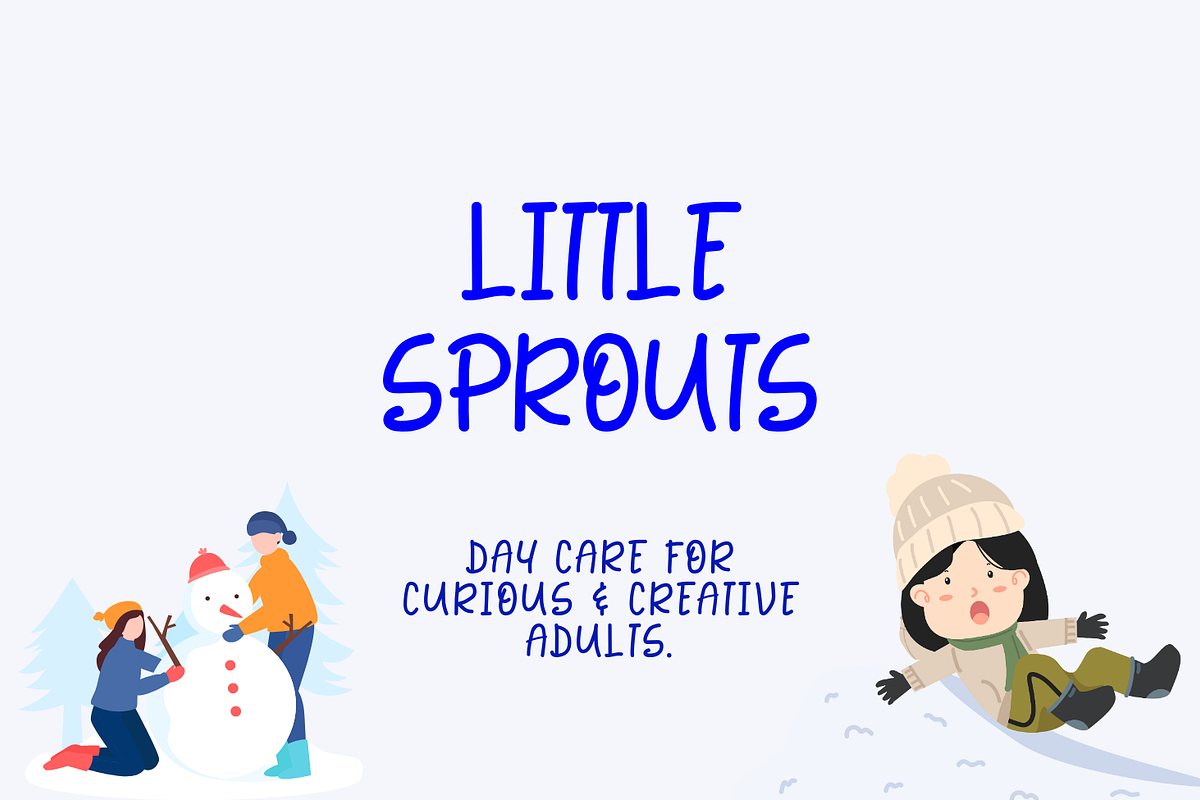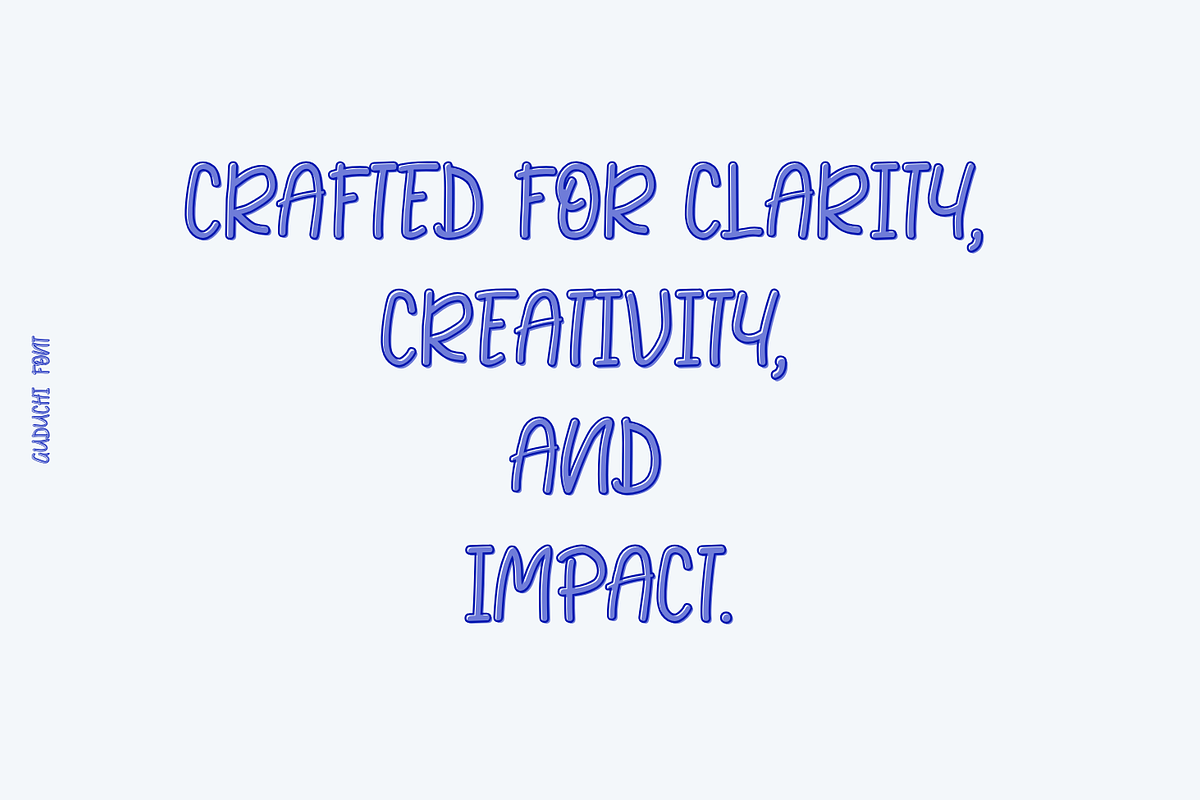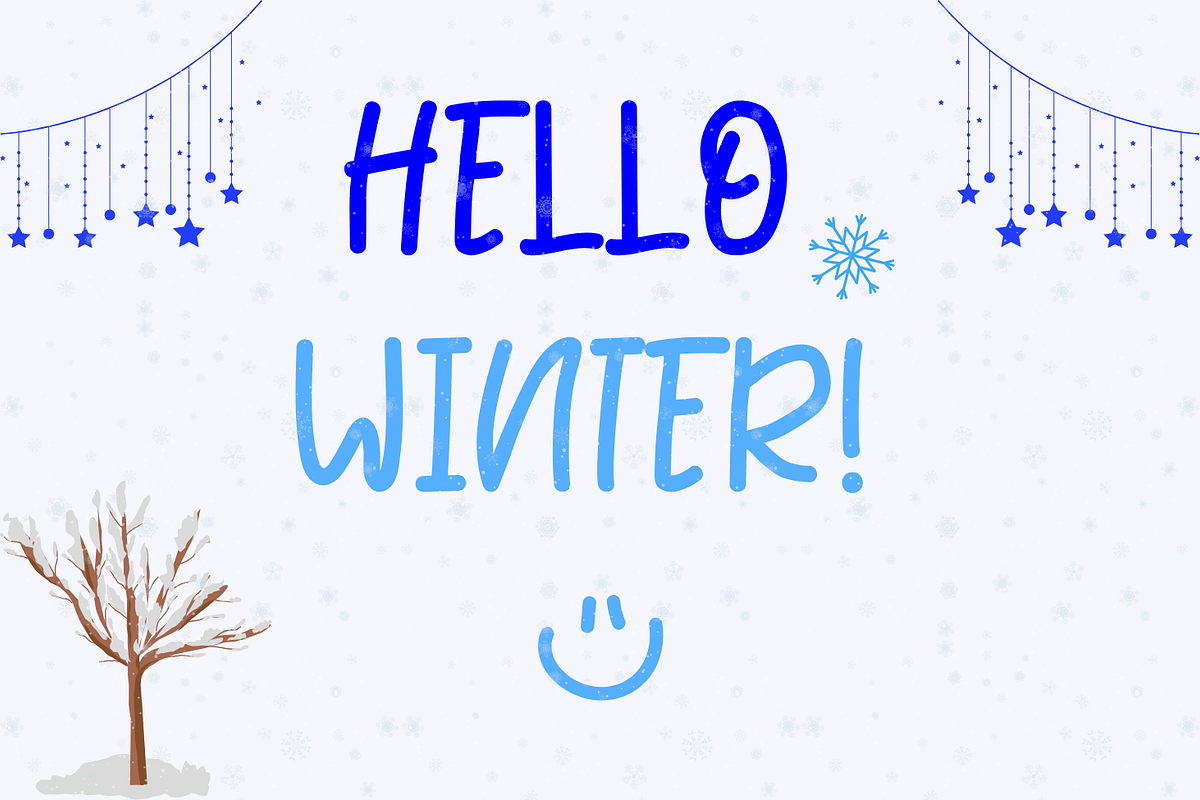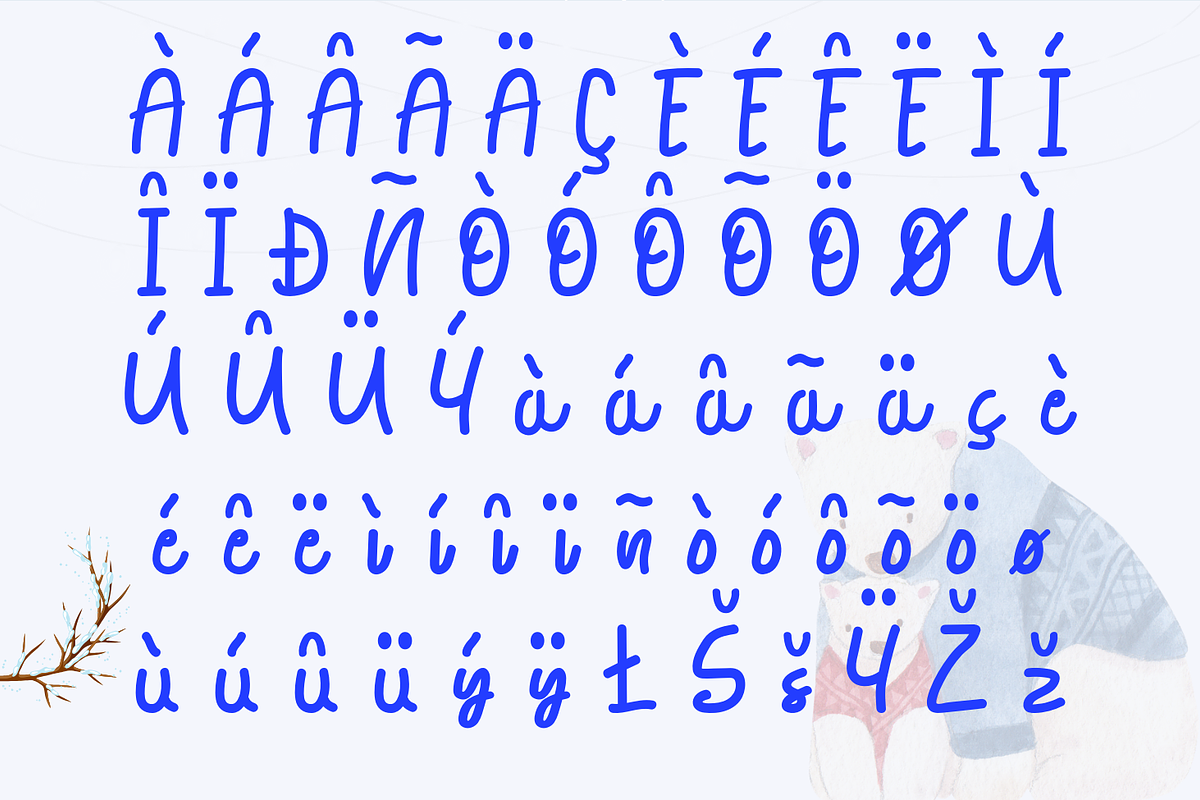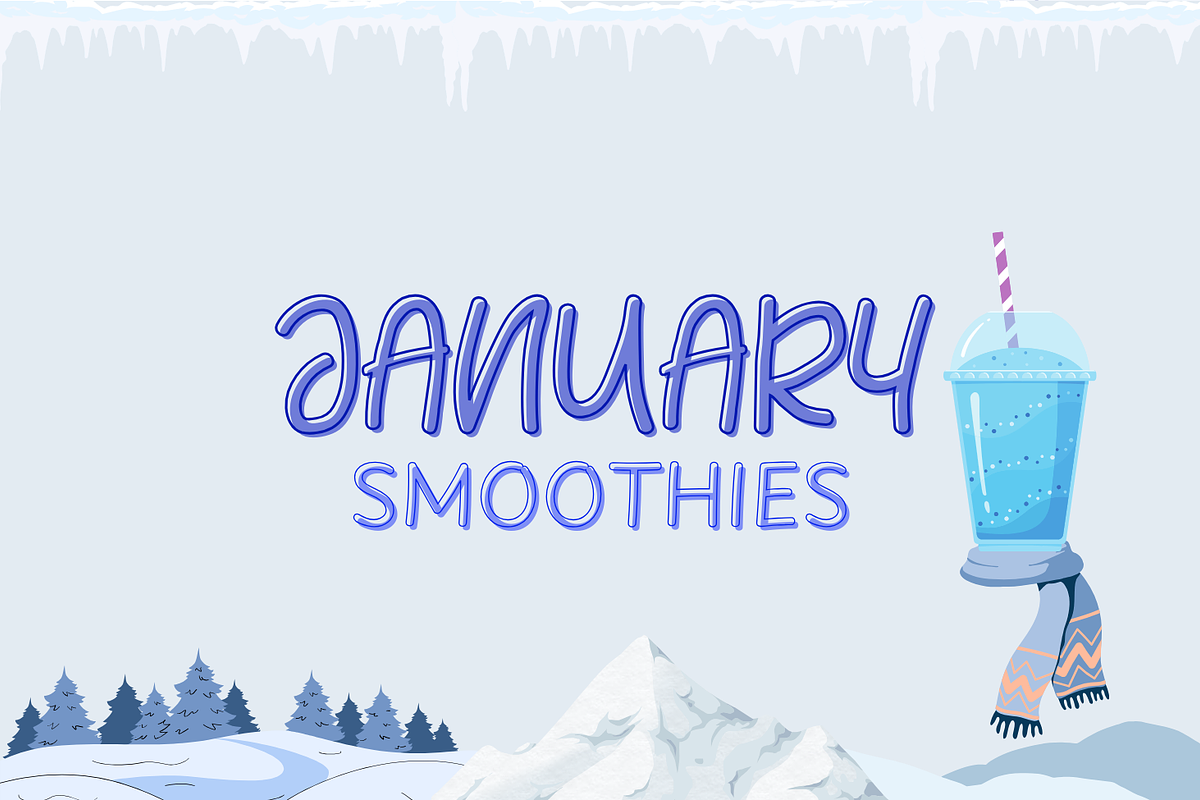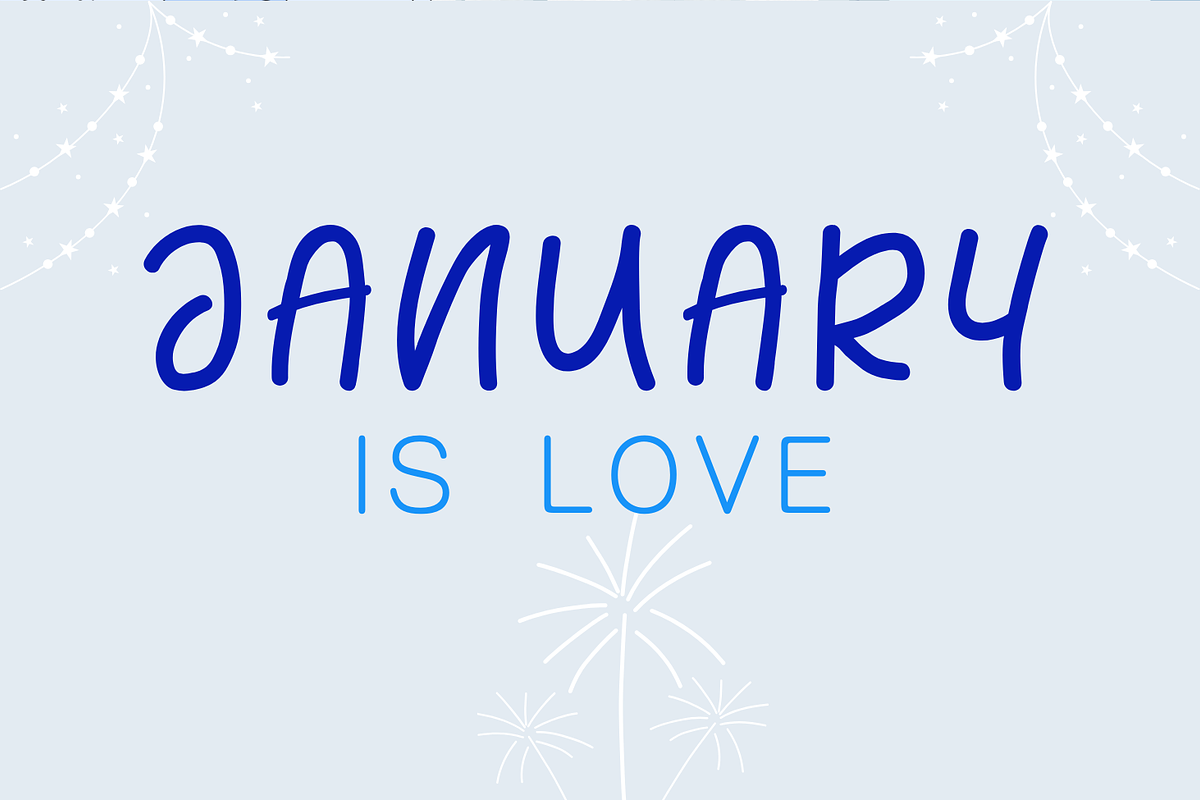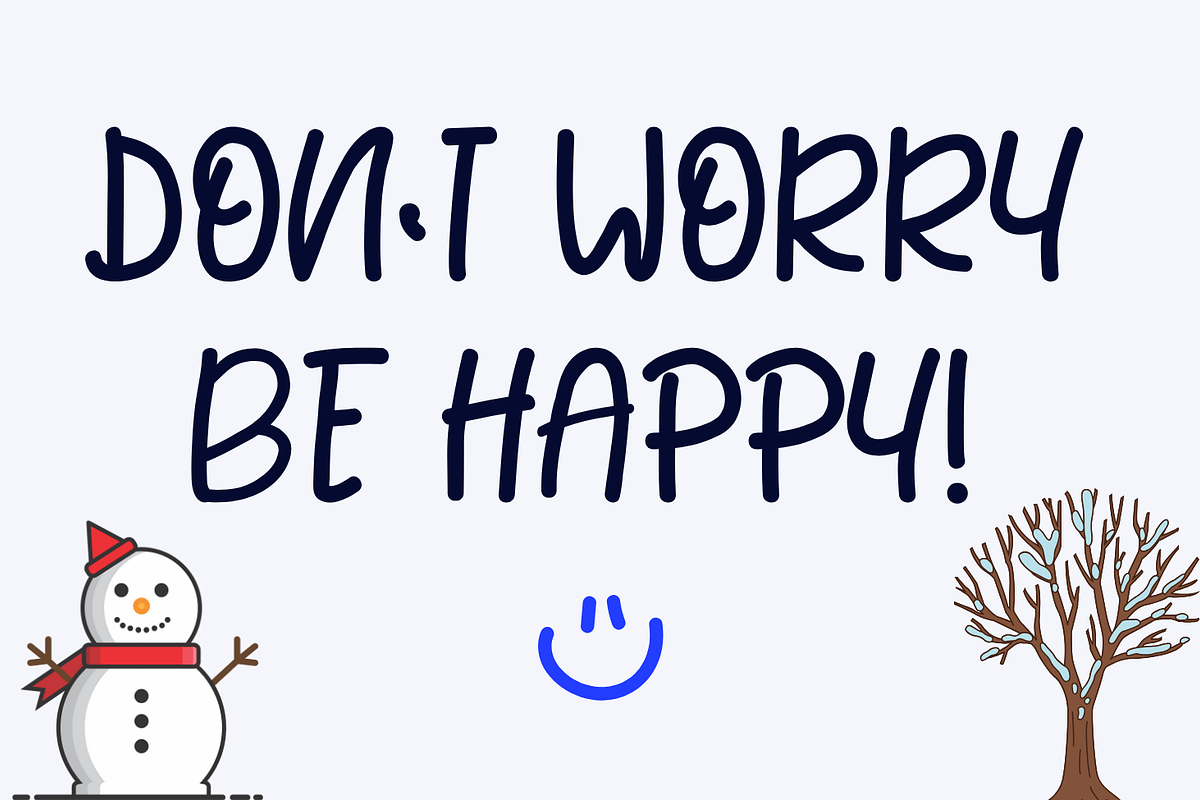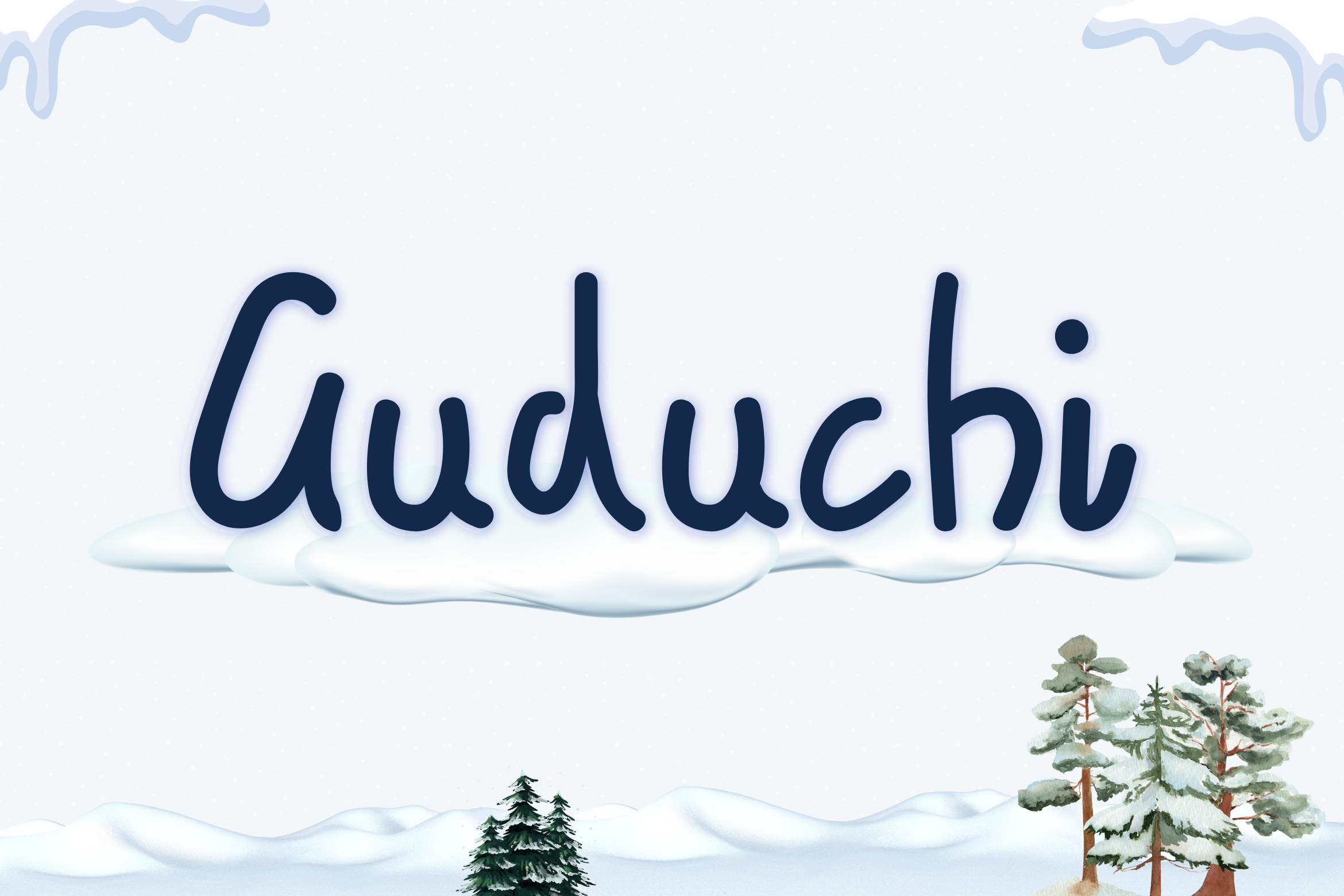
Guduchi Handmade Font
Guduchi Handmade Font is a fun and creative font that looks hand-drawn. It’s great for making designs like logos, cards, invitations, and crafts. Its natural style adds a cozy and friendly look to your work.
This font has uppercase and lowercase letters, numbers, punctuation, and many special characters. It is flexible and works well for different design ideas like rustic, DIY, or casual themes.
- Complete set of characters, including international ones (shown in the preview)